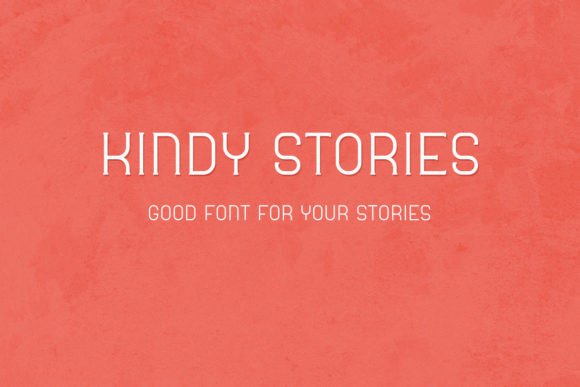
Welcome to the world of Kindy Stories, the captivating display font that sparks imagination and captures hearts. Dive into a realm of enchanting designs, where your creative projects take center stage. With its playful yet elegant spirit, Kindy Stories is the ultimate choice for game branding and an array of artistic endeavors.
Ignite your imagination with Kindy Stories and let your ideas come alive. Picture captivating game titles, vibrant logos that demand attention, and eye-catching website headers that leave a lasting impression. This font is your gateway to a world of limitless possibilities, where every project becomes a masterpiece.
Kindy Stories possesses a versatile charm that knows no bounds. Its graceful lines and energetic curves adapt effortlessly to a myriad of styles, making it the perfect companion for posters, flyers, brochures, and even social media graphics. With Kindy Stories, your designs will radiate a captivating allure, leaving a lasting impact on your audience.
Designed with meticulous care by the talented team at Mightyfire, Kindy Stories is a font crafted to inspire and empower. Its easy-to-use format allows you to seamlessly integrate it into your creative projects, transforming ordinary designs into extraordinary works of art.
But Kindy Stories is more than just a font; it's an invitation to unleash your creativity. Embrace the magic of this captivating display font and watch as your projects take on a life of their own. As you weave your creative tapestry with Kindy Stories, you'll discover a world where imagination reigns supreme.